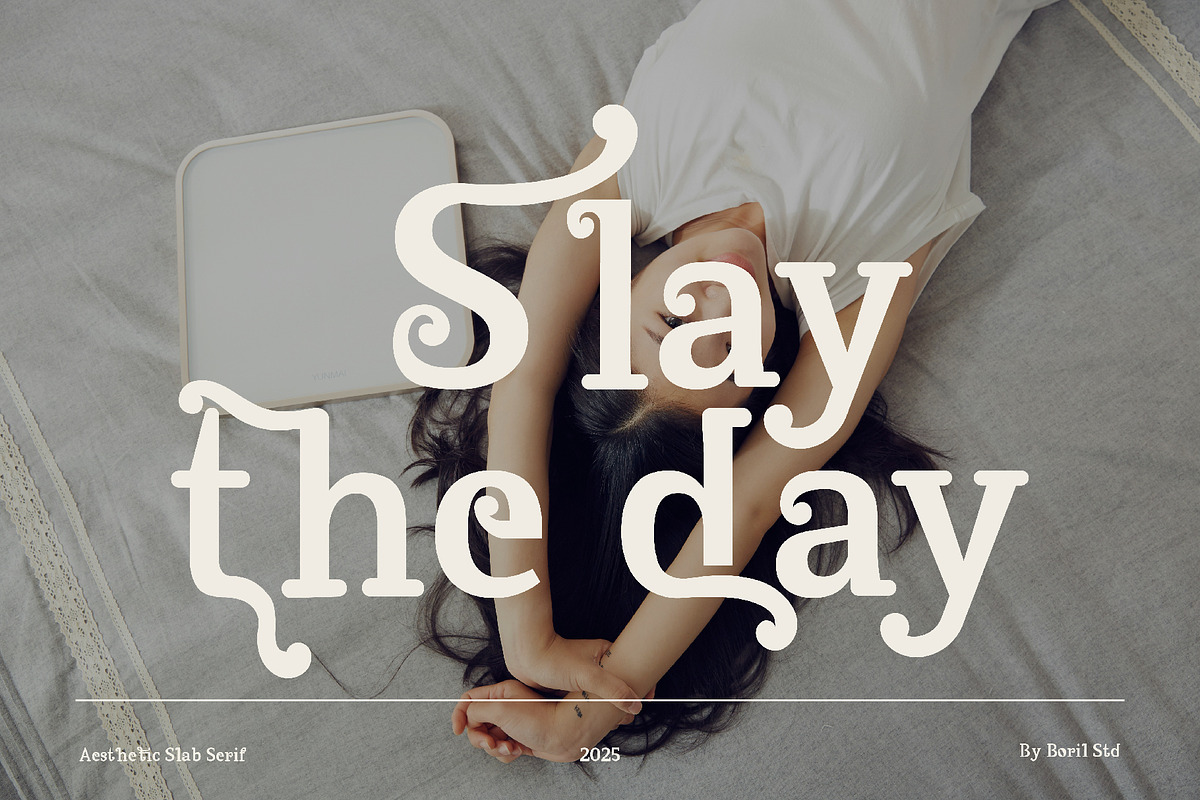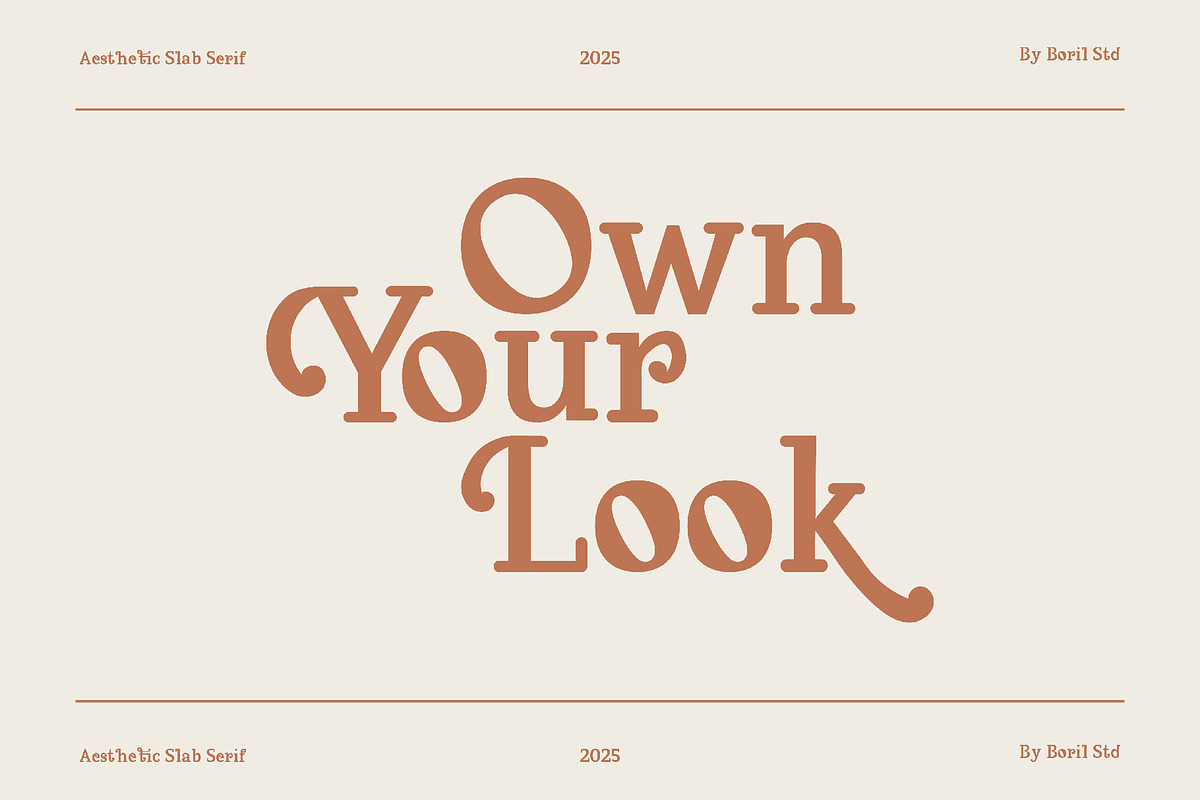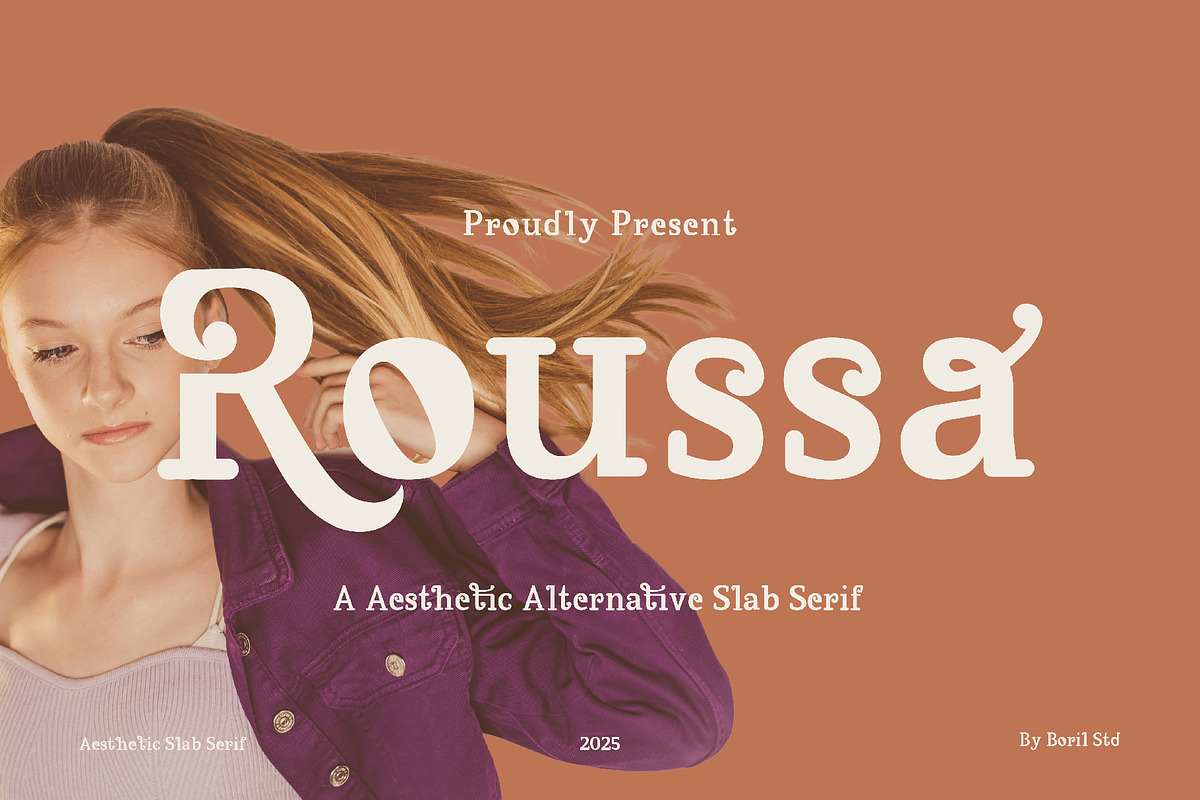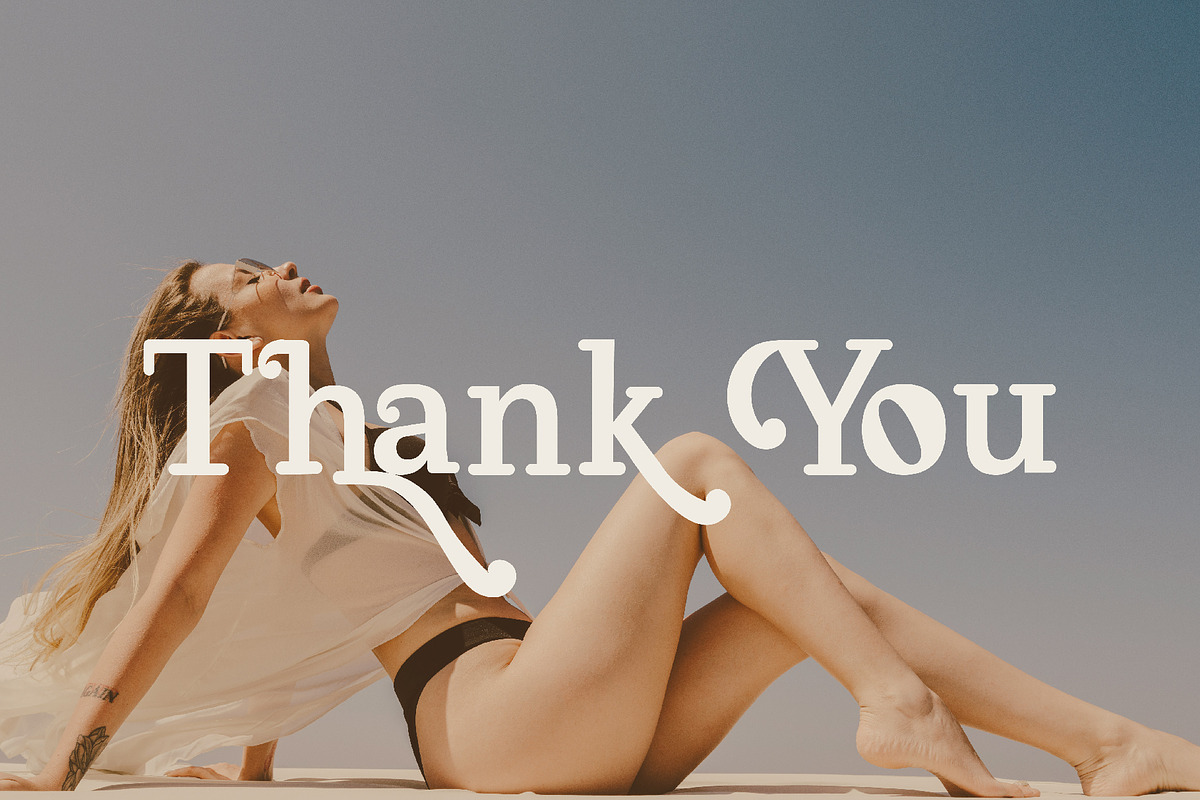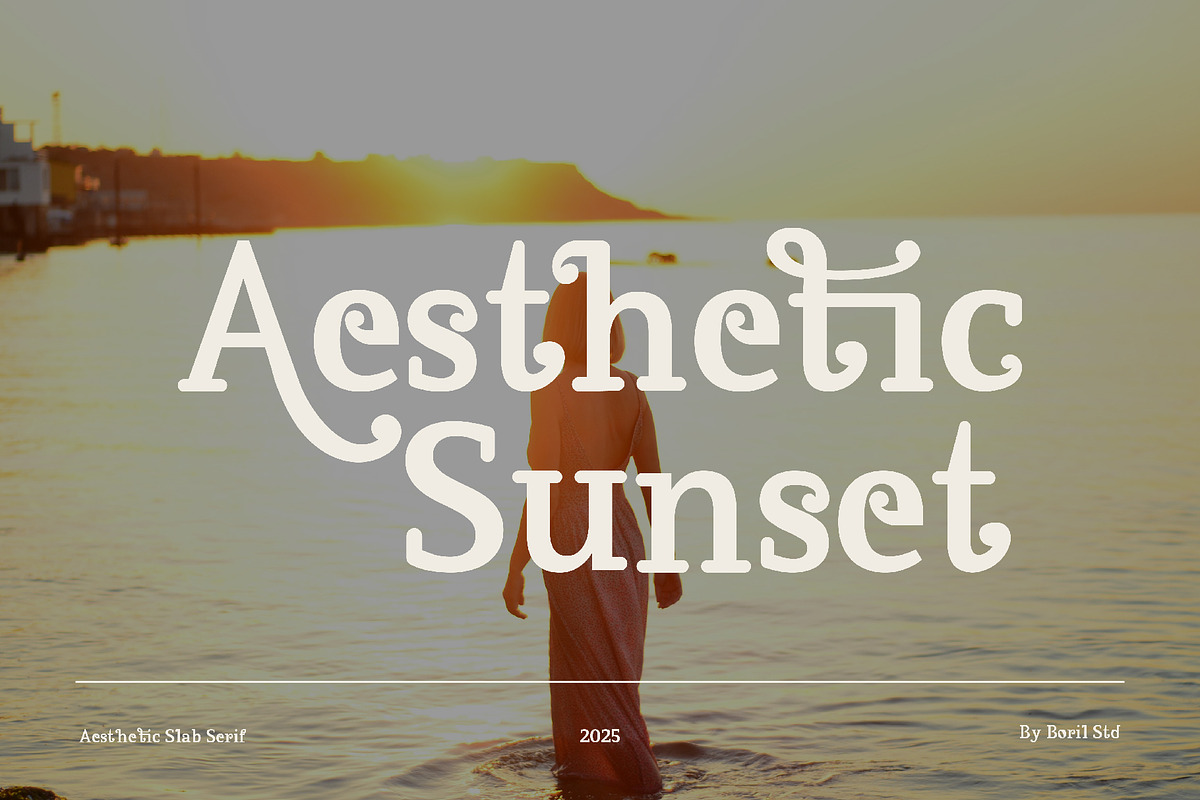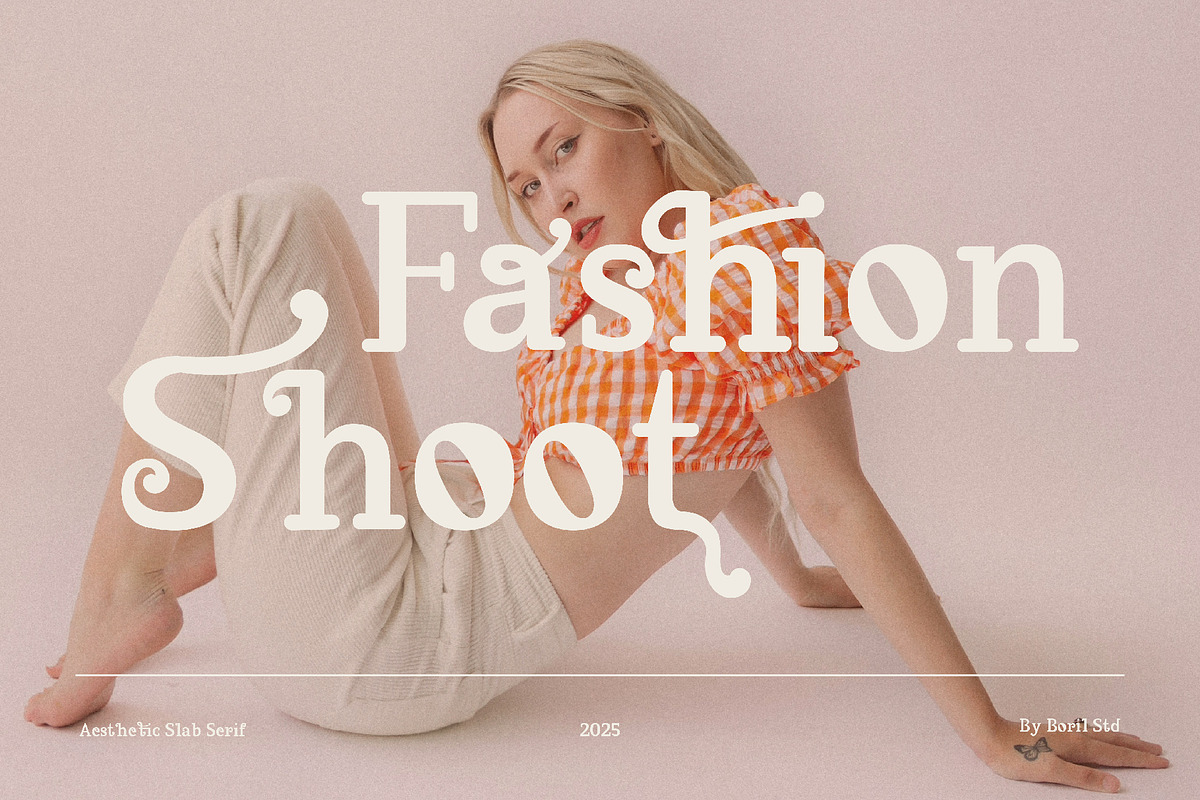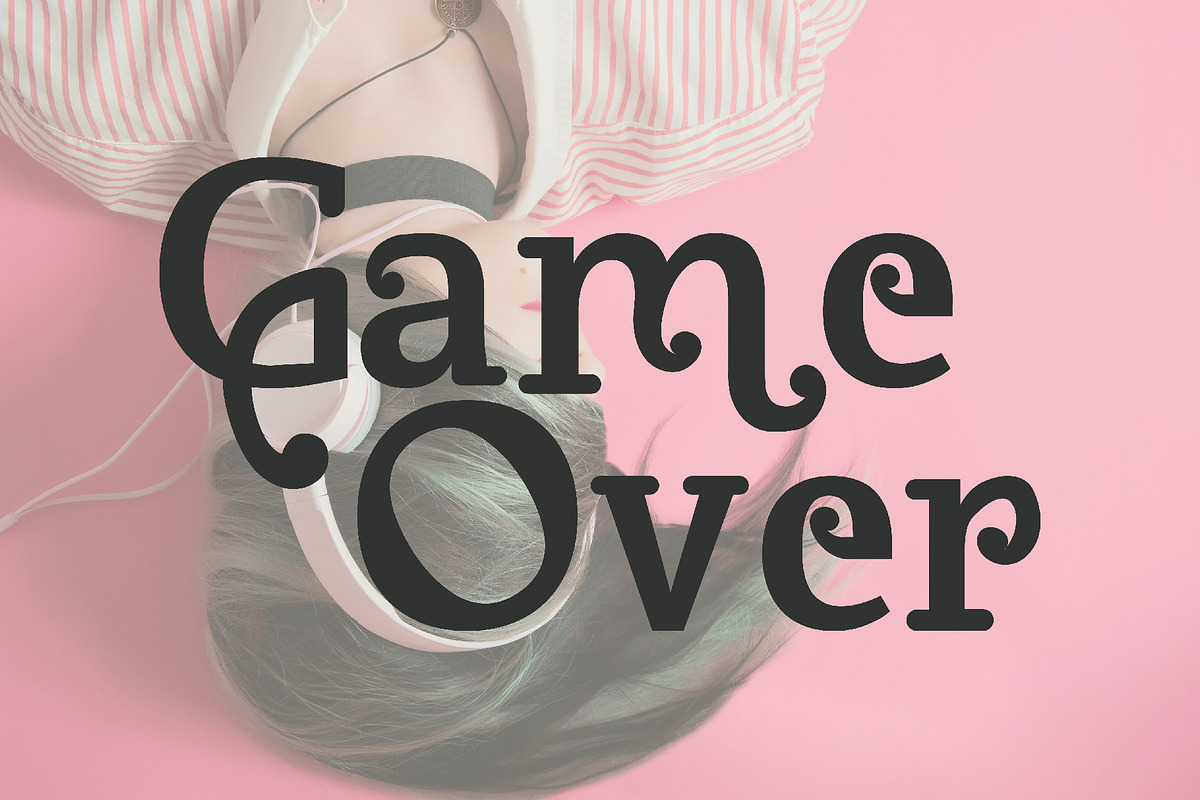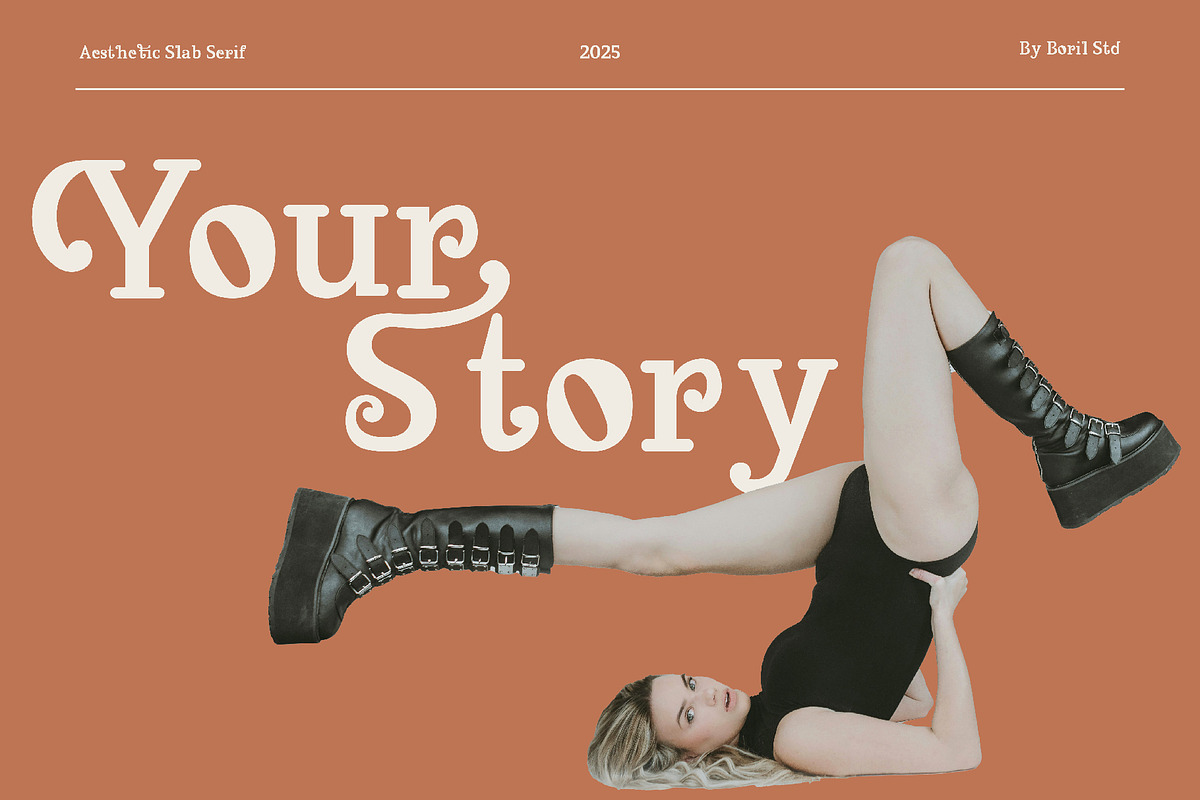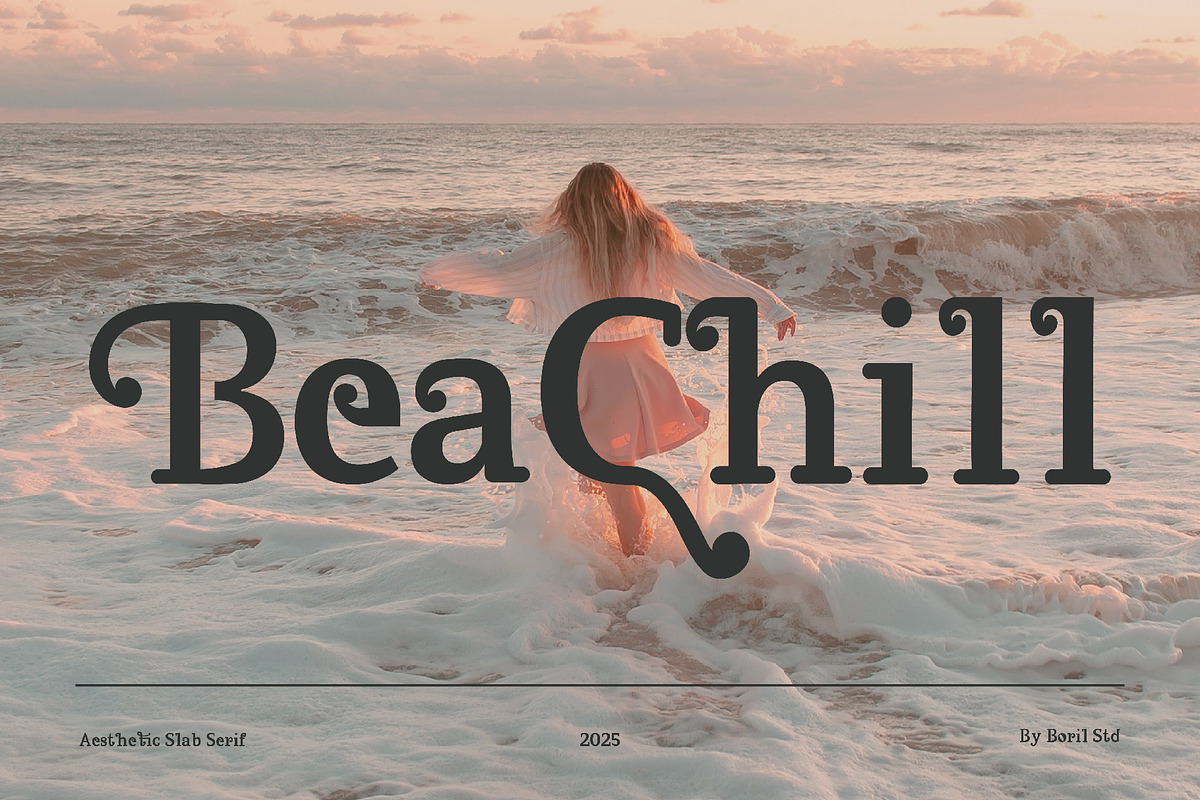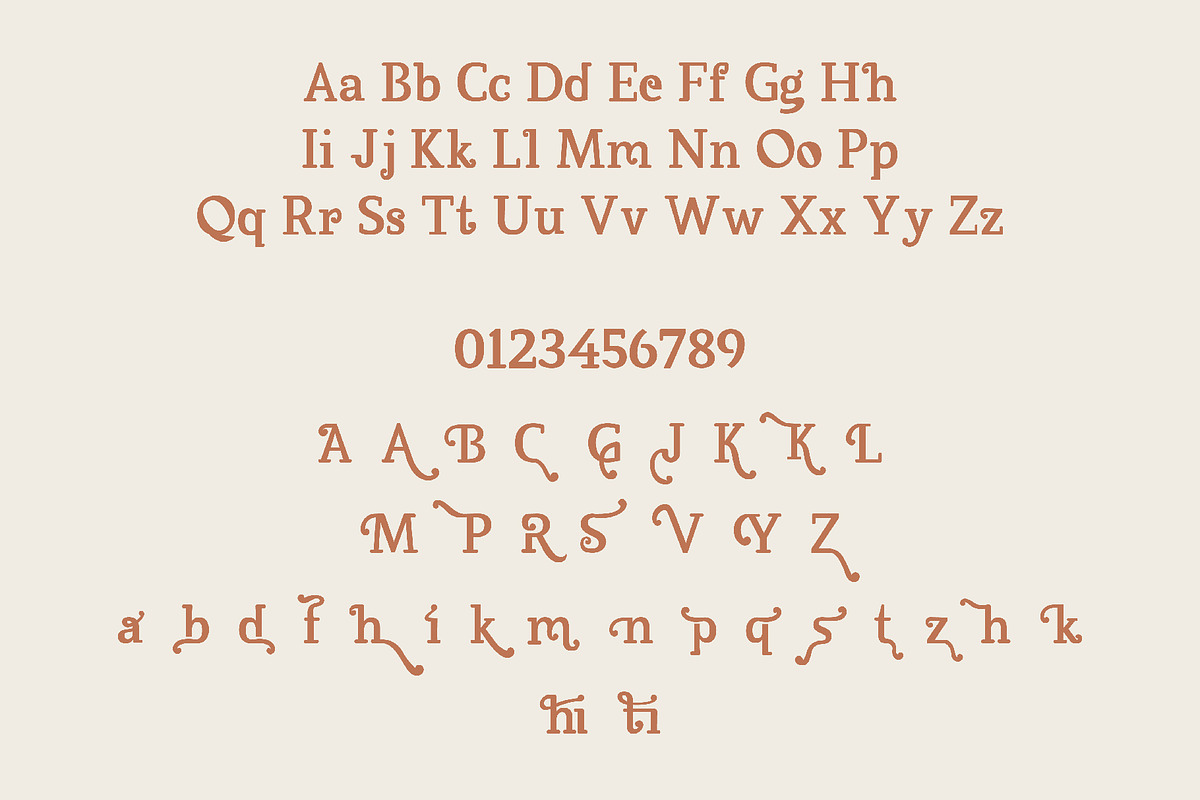
Roussa Aesthetic Slab Serif
The Roussa font is classic yet features unique touches like curved ornaments and Latin accents, creating a striking aesthetic.
Various alternative glyphs - see preview image for glyph options.